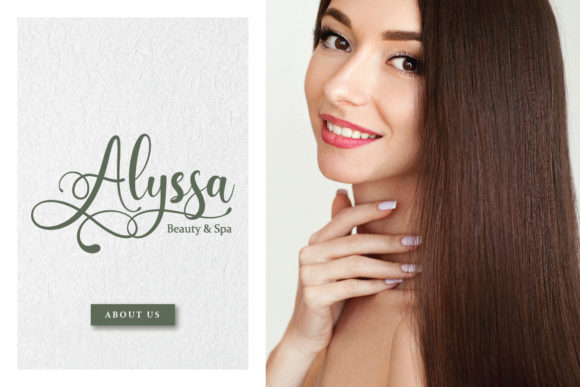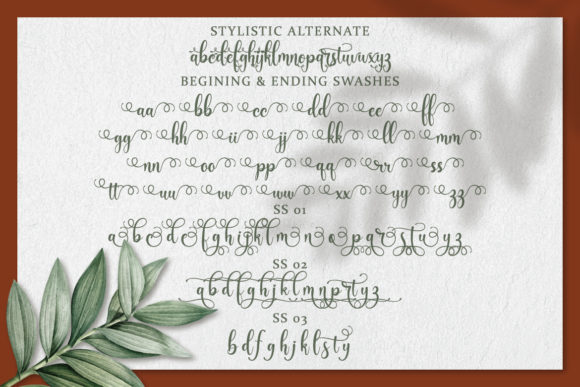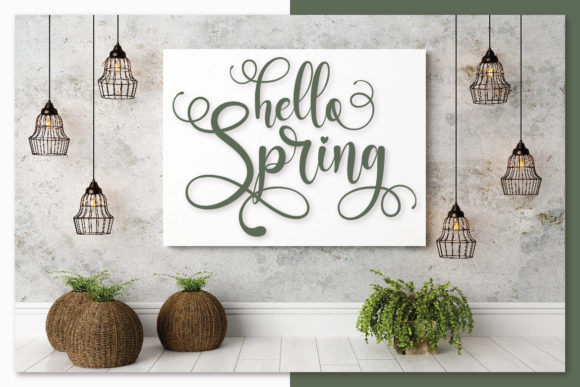
The Floristya Font: A Playful yet Elegant Addition to Your Craft Library
I still remember the day I stumbled upon the perfect font for a client’s wedding invitation project. I had been searching for hours, trying out different fonts, but none seemed to fit the playful yet elegant vibe my client was looking for. That’s when I discovered Floristya Font. It was love at first sight! ✨
As a designer, I’m always on the lookout for fonts that can add a touch of personality to my projects. And Floristya Font does just that. In this article, I’ll share my honest review of this beautiful font, provide a practical guide on how to use it, and explore similar fonts you might love.
The Good: ✨
- ✅ Playful yet elegant: Floristya Font strikes the perfect balance between playfulness and elegance, making it suitable for a wide range of projects.
- ✅ OpenType features: This font comes with a range of OpenType features, including stylistic alternates, swashes, and ligatures, which can add a touch of sophistication to your designs.
- ✅ Highly legible: Despite its playful nature, Floristya Font is highly legible, even at smaller font sizes.
The Not-So-Good: 🤔
- ⚠️ Limited character set: While Floristya Font has a wide range of characters, it may not have every special character or glyph you need.
- ⚠️ Can be overused: With its playful nature, Floristya Font can be overused. Make sure to balance it with other fonts or design elements to avoid overwhelming your design.
Designer Inspiration: The Story Behind Floristya Font
Floristya Font was designed with the intention of creating a playful yet elegant font that would be perfect for crafty projects. The designer, inspired by the world of floristry, aimed to create a font that would evoke the feeling of fresh flowers and delicate petals.
Q: What is the best way to use Floristya Font?
A: Floristya Font is best used for crafty projects, such as invitations, cards, and other paper crafts. It’s also suitable for digital projects, such as social media graphics and blog posts.
Q: Is Floristya Font suitable for body text?
A: While Floristya Font is highly legible, it’s best used for headlines and titles. For body text, you may want to choose a more traditional font that’s easier to read.